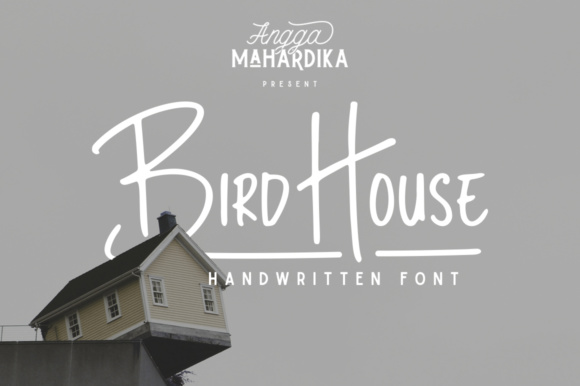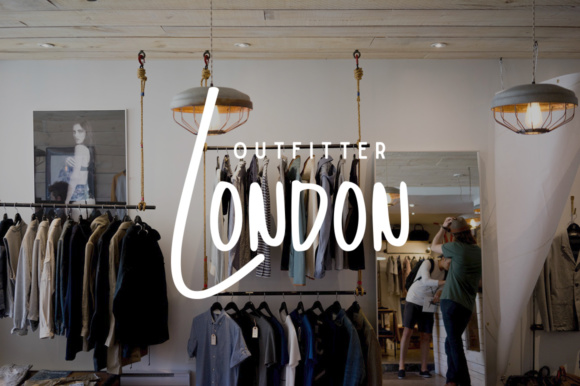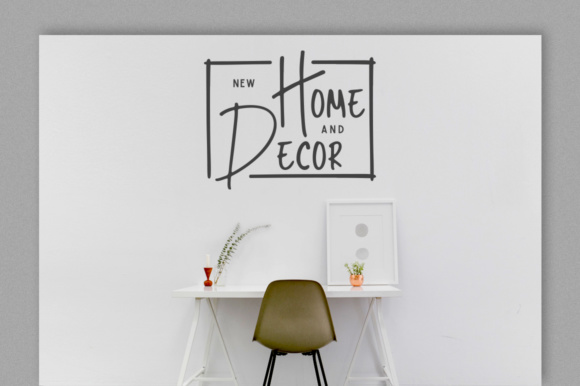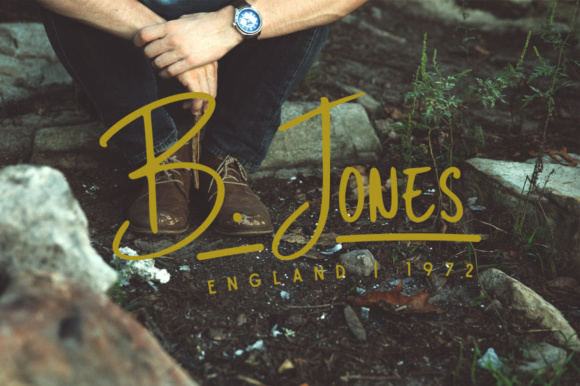
Bird House Font: A Cute Handwritten Font for DIY & Cricut Projects
About the Bird House Font
Introducing the Bird House Font, a beautifully crafted typeface designed to elevate your creative projects. Bird House is a handwritten font designed using markers. Bird House is perfect for branding, signatures, and much more!
Bird House Font Usage Examples
Bird House Font Example